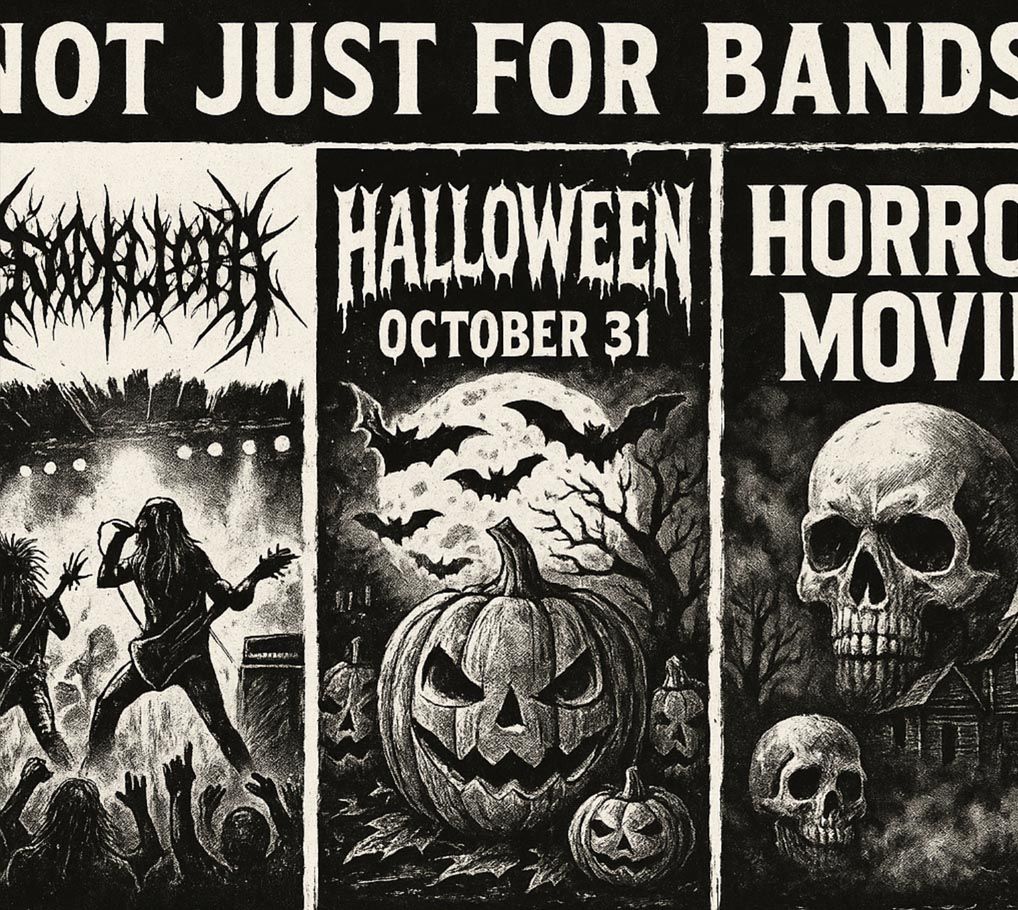
When people see metal fonts—those thorny, spiked, or blood-dripping letters—they immediately think of metal bands. That’s fair. These fonts are deeply connected to the genre’s raw intensity, darkness, and rebellion.
But here’s the truth:
Metal fonts are far more versatile than you think.
From haunted houses to horror films, and even edgy branding, these fonts have a life beyond album covers. Let’s dive into the unexpected but powerful ways metal fonts can elevate other creative projects—and which specific fonts work best.
🎃 1. Perfect for Halloween Posters and Promotions
Halloween is all about atmosphere—fear, suspense, the supernatural.
Metal fonts instantly evoke:
- Blood
- Mystery
- Chaos
- Death
That makes them perfect for:
- Haunted house flyers
- Halloween party posters
- Trick-or-treat branding
👉 Recommended Fonts from BlackMetalFont.com:
- NEXUS – chaotic yet legible, ideal for eerie Halloween event banners.
- ZAMRUDS – sharp and tribal, perfect for haunted house signage.
A good metal font screams terror before the event even starts.
🎥 2. Horror Film Titles and Trailers
Your title font is your first scare.
Whether you’re working on a slasher, a found-footage thriller, or an occult horror story, metal fonts help:
- Establish the tone
- Make the title unforgettable
- Add gritty realism to posters and trailers
👉 Try These:
- BMF BASE METAL (Rough Style) – rough, distressed texture perfect for blood-soaked titles.
- HUNGER FLAME – wild, beast-like strokes that scream survival horror.
Think of fonts like soundtracks—for your eyes.
👻 3. Event Branding for Gothic or Dark-Themed Projects
If you’re planning an event with an edgy, mysterious, or underground vibe, metal fonts are your best allies.
Great for:
- Witchcraft markets
- Tattoo expos
- Escape room branding
Let the font speak louder than the invitation text.
🛒 4. Merchandise with Edge and Identity
Even outside of the music scene, metal fonts shine on:
- T-shirts
- Stickers
- Enamel pins
- Halloween mugs and candles
You don’t need to be in a band to sell dark-themed merch.
👉 Perfect fonts for merch:
- WILDLIFE BRUSH – gritty brush font with beast vibes for primal products.
Sharp fonts = sharp sales.
📚 5. Book Covers: Horror, Fantasy, and the Occult
If you’re designing for:
- Horror novels
- Witchcraft guides
- Occult poetry
- Dark fantasy
…a metal font delivers the exact mood readers crave.
👉 Font suggestions:
- NEXUS – perfect for extreme or post-apocalyptic tales.
🖌️ 6. Dark Art and Personal Project
Artists with macabre, mythic, or horror themes should embrace metal typography.
Use it in:
- Poster designs
- Gallery titles
- Digital horror art thumbnails
👉 Recommended from BlackMetalFont.com:
- ZAMRUDS – for tribal or blackened artworks.
A good metal font doesn’t just frame your art—it completes it.
Conclusion
Metal fonts are not just for bands.
They’re tools of visual emotion—expressing fear, intensity, and the unknown in a single glance.
So whether you’re designing a Halloween flyer or a horror film poster, fonts like NEXUS, BMF BASE METAL from BlackMetalFont.com will give your project the edge it craves.
Make people scream before they even see the monster.